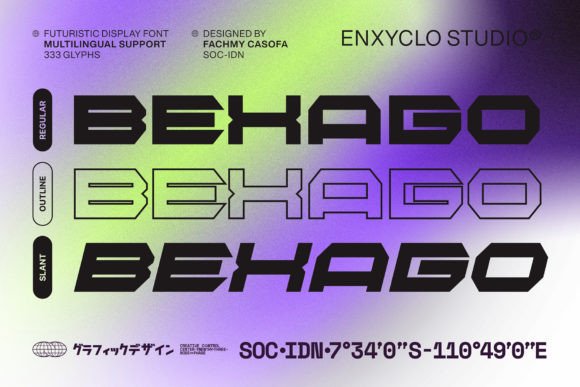
Unlocking the Power of Bexago Font: A Futuristic Display Font for Creative Projects
A Personal Review: What I Love About Bexago Font
So, what makes Bexago Font so special? Here are a few things that I absolutely love:
• ✨ Futuristic vibe: Bexago Font has a sleek, modern design that instantly gives your project a futuristic touch.
• ✅ Versatility: Whether you’re working on a headline, billboard, magazine, website, or social media graphic, Bexago Font adapts seamlessly.
• 💡 Inspiring: The font’s unique design elements will spark your creativity and help you create something truly remarkable.
While Bexago Font is an excellent choice for many projects, there are a few things to keep in mind:
• 🤔 Legibility at small sizes: Like many display fonts, Bexago Font may not be the best choice for body text or small font sizes.
• ⚠️ Limited OpenType features: While Bexago Font does offer some OpenType features, it may not have as many as some other fonts on the market.
The Backstory Behind Bexago Font
Bexago Font was designed with one goal in mind: to create a font that would inspire creativity and bring a futuristic touch to any project. While the designer’s exact inspiration may be unknown, it’s clear that Bexago Font was crafted with attention to detail and a passion for innovative design.
What type of projects is Bexago Font best suited for? Bexago Font is perfect for headlines, billboards, magazines, websites, titles, posters, branding, thumbnail, t-shirt design, streetwear design, creative logos, or any project that needs a futuristic touch.
Does Bexago Font come with any OpenType features? Yes, Bexago Font offers some OpenType features, including stylistic alternates and glyphs.
In conclusion, Bexago Font is an exceptional choice for designers, crafters, and creative hobbyists looking to add a futuristic touch to their projects. With its sleek design, versatility, and inspiring vibe, Bexago Font is sure to take your projects to the next level.